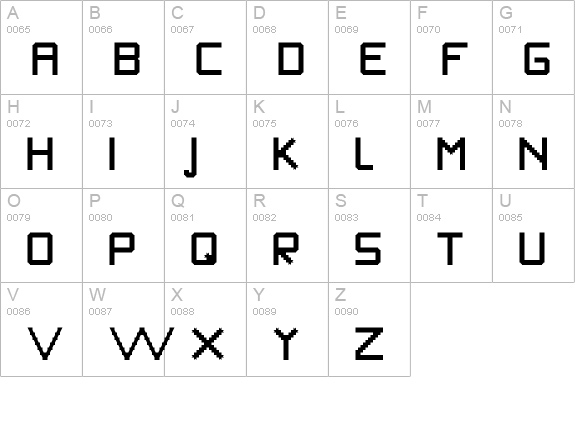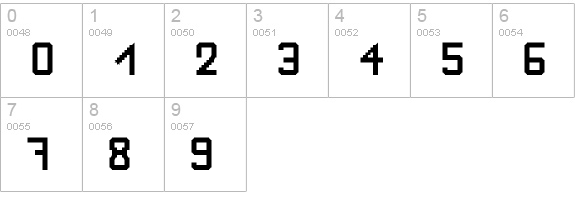
WLM Nova Sans ExtraBold Regular Font Details
WLM Nova Sans ExtraBold Regular is an extra-heavy, attention-grabbing variant in the WLM typeface family \xE2\x80\x94 well suited to high-impact headlines, posters, and bold branding.
WLM Nova Sans ExtraBold Regular is a remarkable font that exudes power, elegance, and versatility all in one. This font is carefully crafted with precise attention to detail, resulting in a stunning typeface that effortlessly catches the eye. With its bold and commanding presence, WLM Nova Sans ExtraBold Regular demands attention and adds a touch of sophistication to any design project. The strong and clean lines of this font make it perfect for a wide range of applications, whether it be for headlines, logos, branding materials, or any other creative endeavor that requires a bold statement. Its versatility allows it to seamlessly blend into various design styles, making it a go-to choice for designers seeking to make a lasting impression. What sets WLM Nova Sans ExtraBold Regular apart is its accessibility as a free font. This means that it is freely available to download at FontsMarket.com, allowing designers to easily access and incorporate this exceptional font into their projects without any constraints. This font not only delivers outstanding design possibilities but also ensures that designers have the freedom to create impactful visuals without any limitations. With WLM Nova Sans ExtraBold Regular, you have the opportunity to elevate your designs to new heights. Its bold and powerful nature combined with its free availability makes it an invaluable asset for designers who seek to make a statement. Download WLM Nova Sans ExtraBold Regular from FontsMarket.com today and unleash the full potential of your creativity.